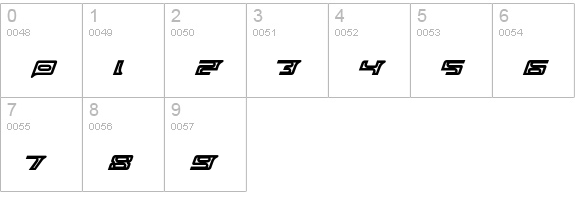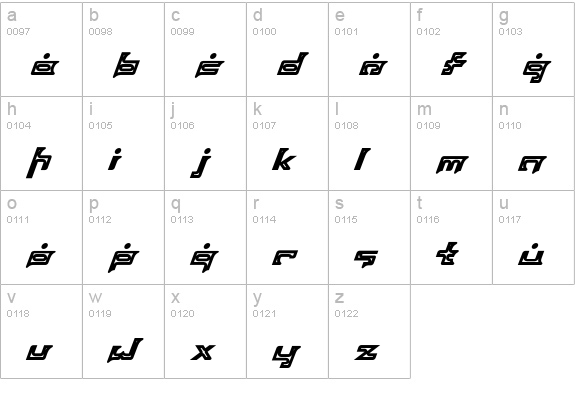
MUSASABI Font Details
Introducing MUSASABI font, a stylish and modern typeface that effortlessly blends elegance with a touch of playfulness. With its sleek lines and unique character shapes, MUSASABI is perfect for a wide range of design projects, from branding to editorial layouts. This versatile font exudes a sense of sophistication while maintaining a sense of approachability, making it a perfect choice for both professional and creative endeavors. The best part? MUSASABI is completely free to download at FontsMarket.com. Simply head over to the website to access this stunning font and enhance your designs with its distinctive charm. Whether you're working on a logo, website, or print materials, MUSASABI is sure to make a lasting impression and elevate your creative projects to new heights. Download MUSASABI today and let your designs shine with this beautiful and freely available font.